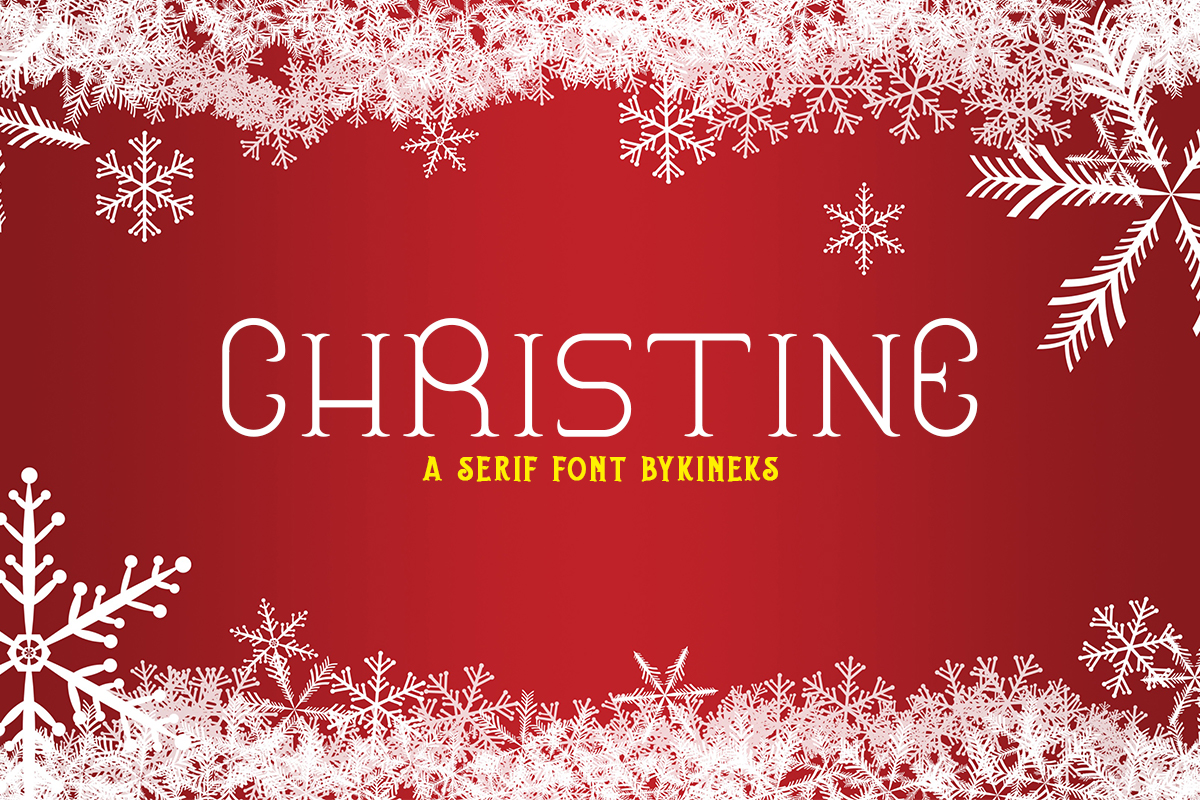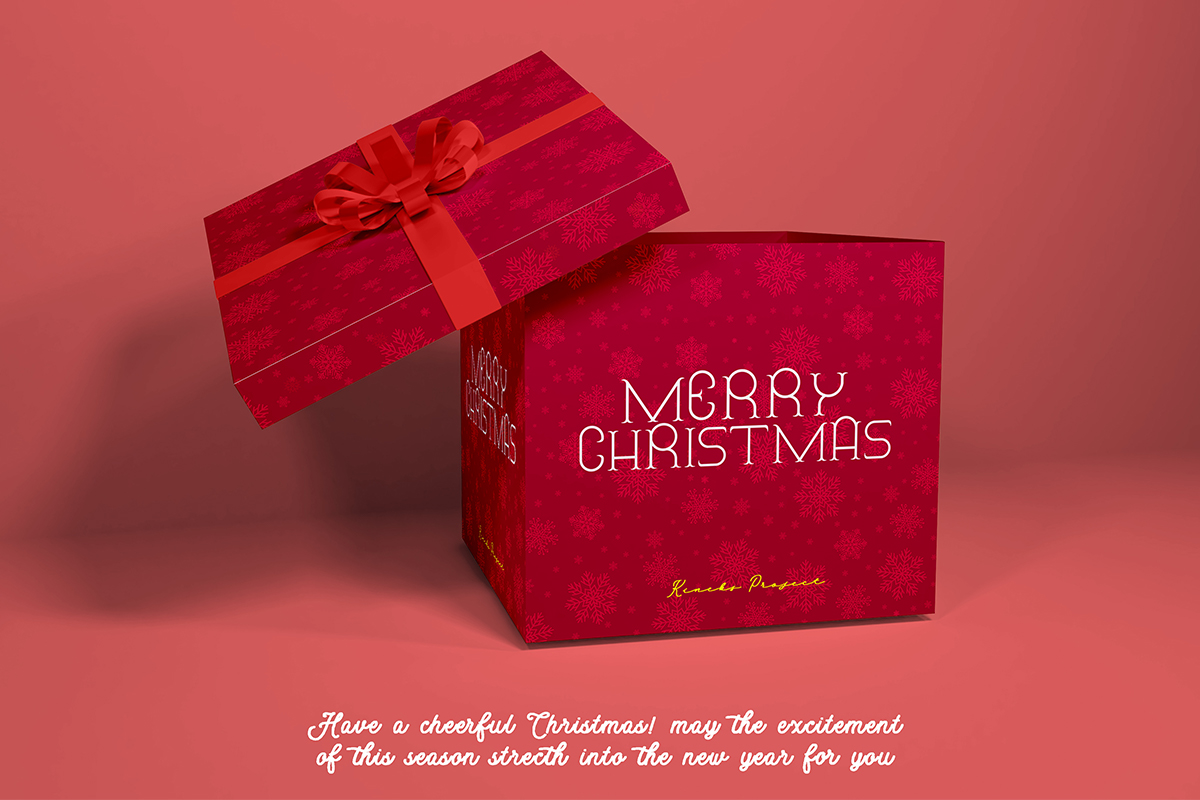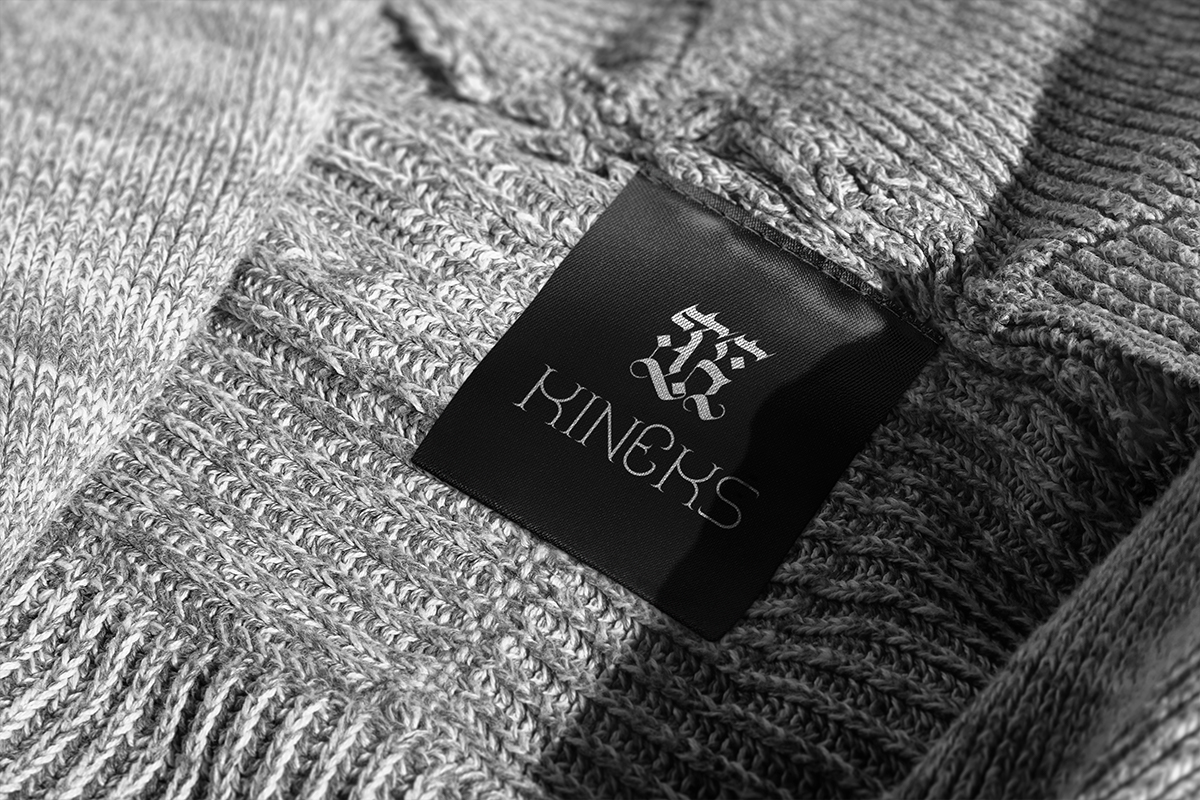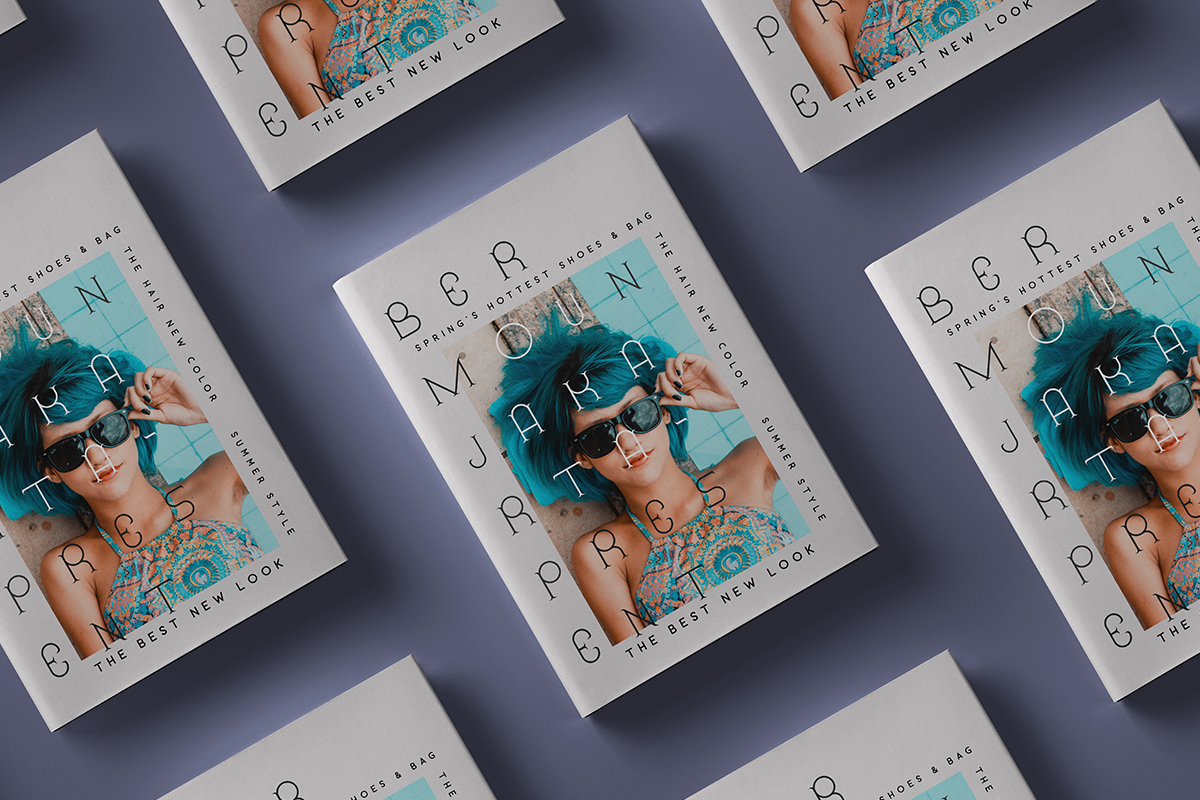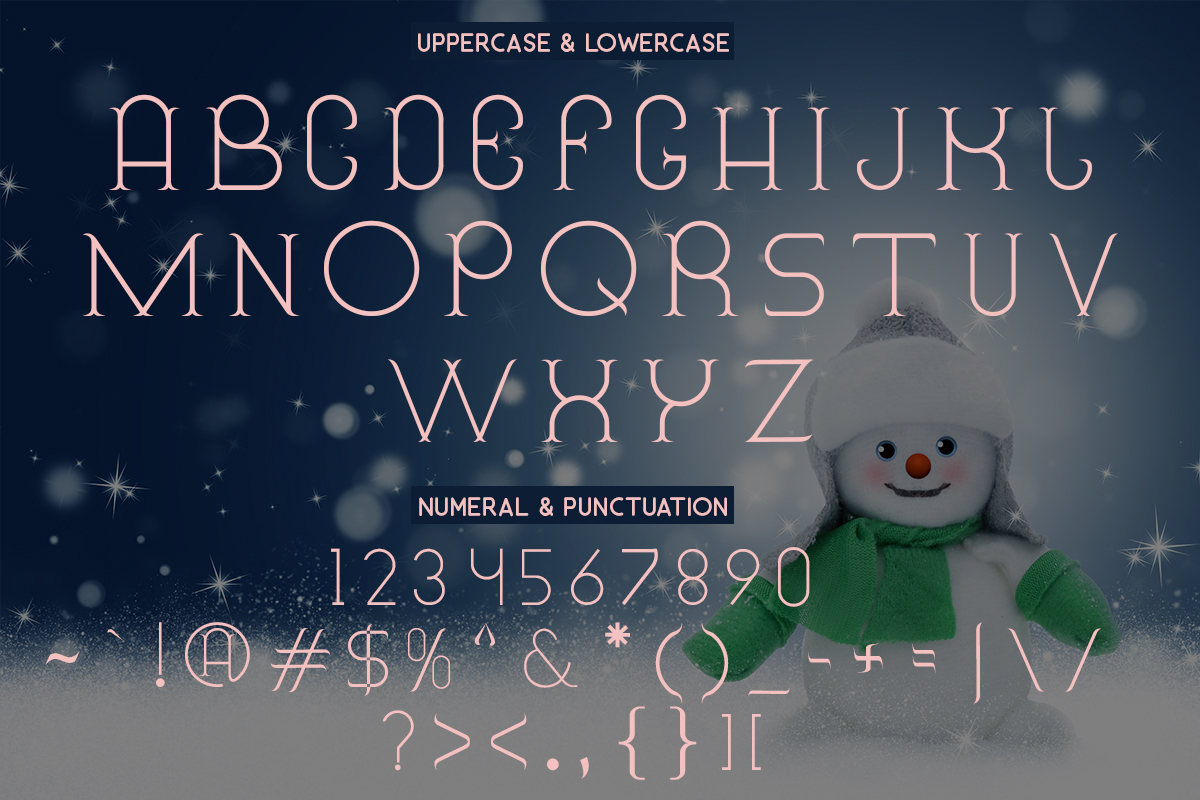
Christine Serif Font
This is a fresh minimalist serif font. If you want a light modern look to your design, this font is the right one for you. Add it to each of your creative ideas, and notice how it makes them stand out!